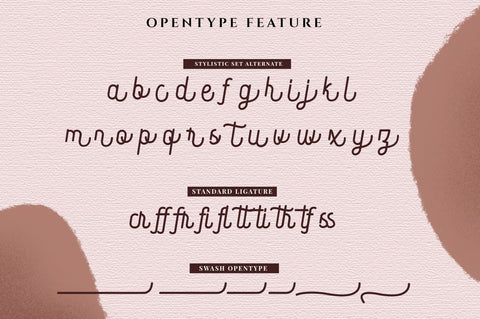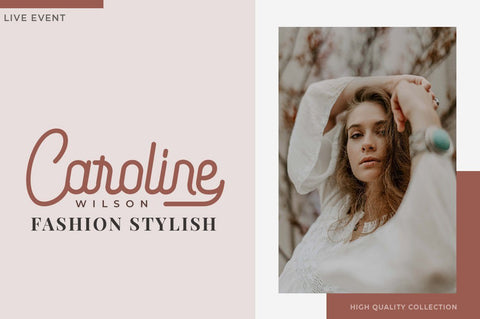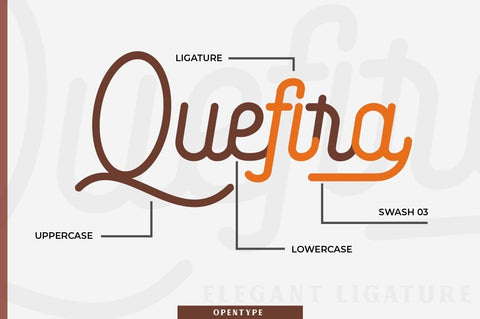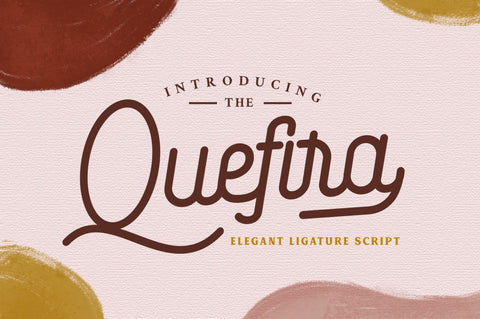
Quefira Script Font
Quefira Script is a clean and minimalist script with beautiful ligature and alternates. It also works wonderfully for many creative designs!
- Uppercase + Lowercase Letters
- Numbers + Punctuation
- Ligature Feature
- OpenType features